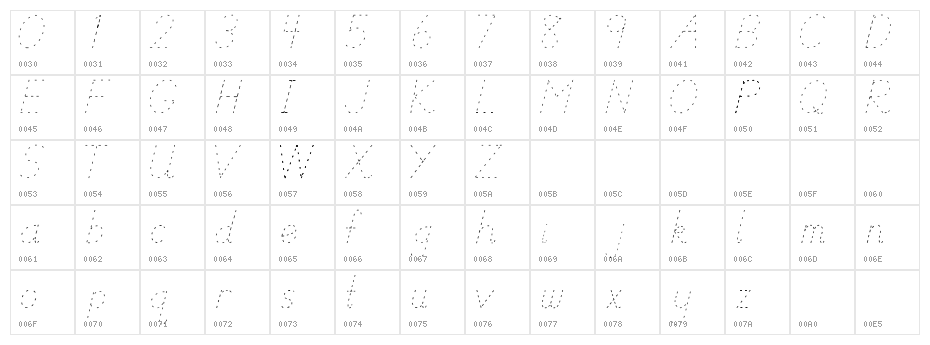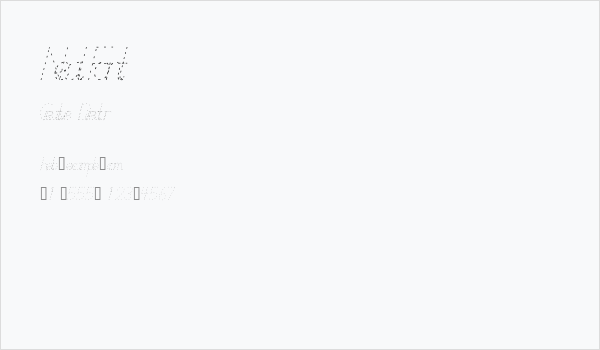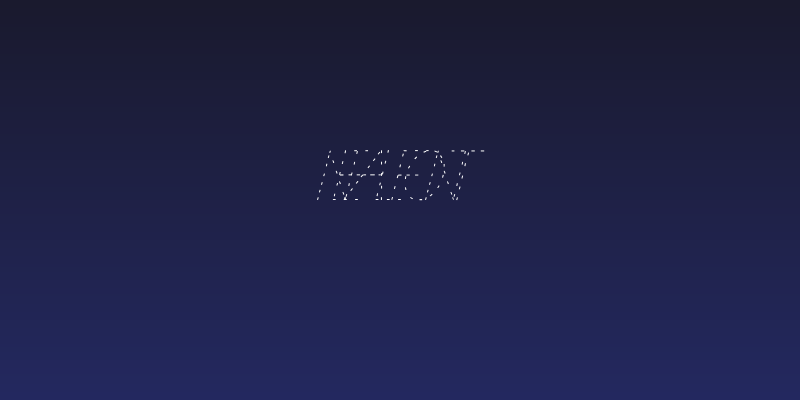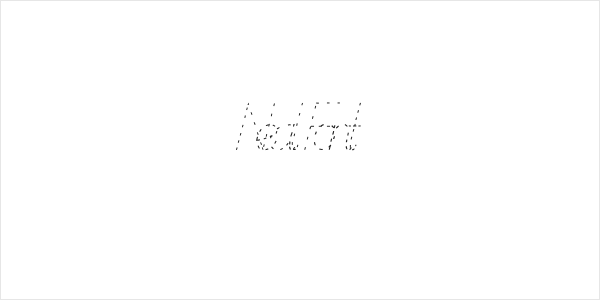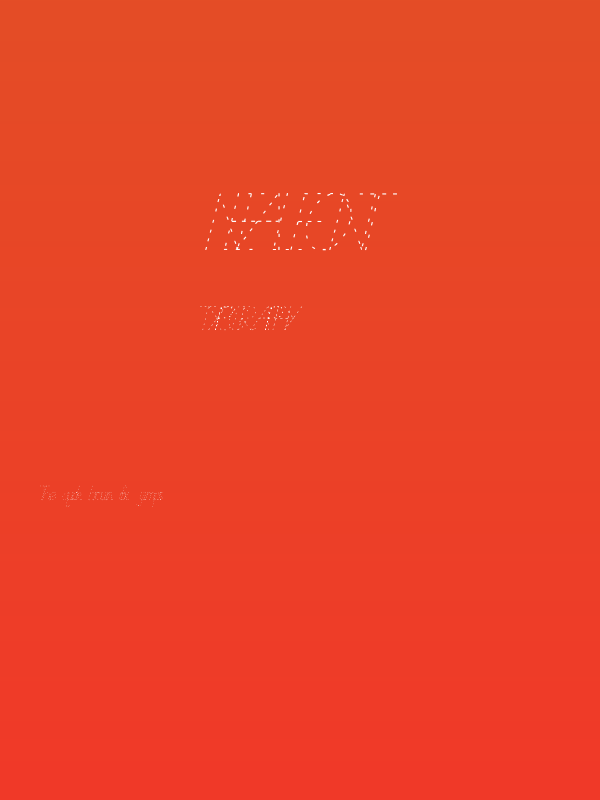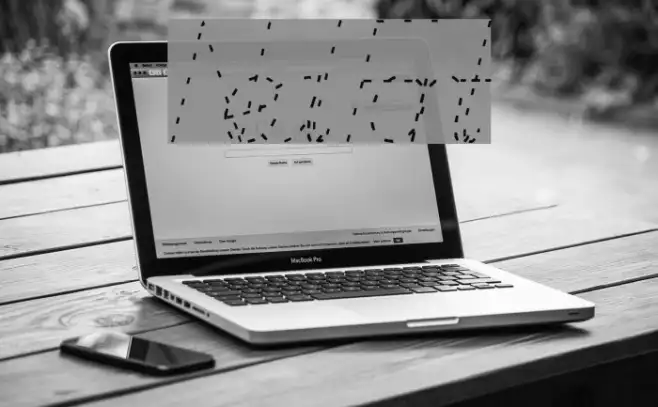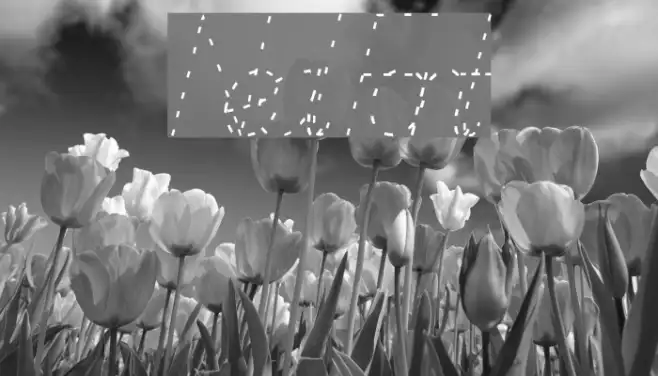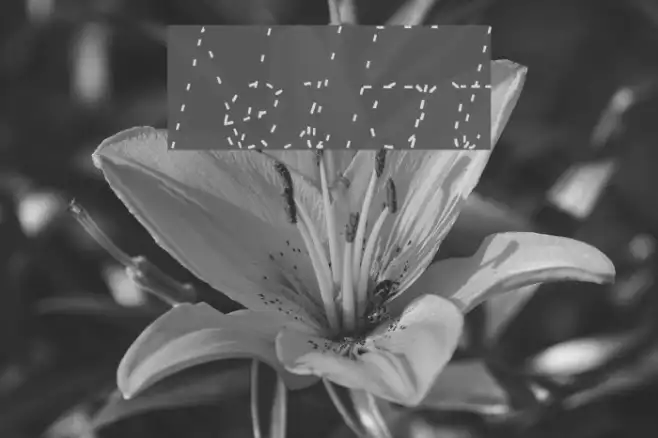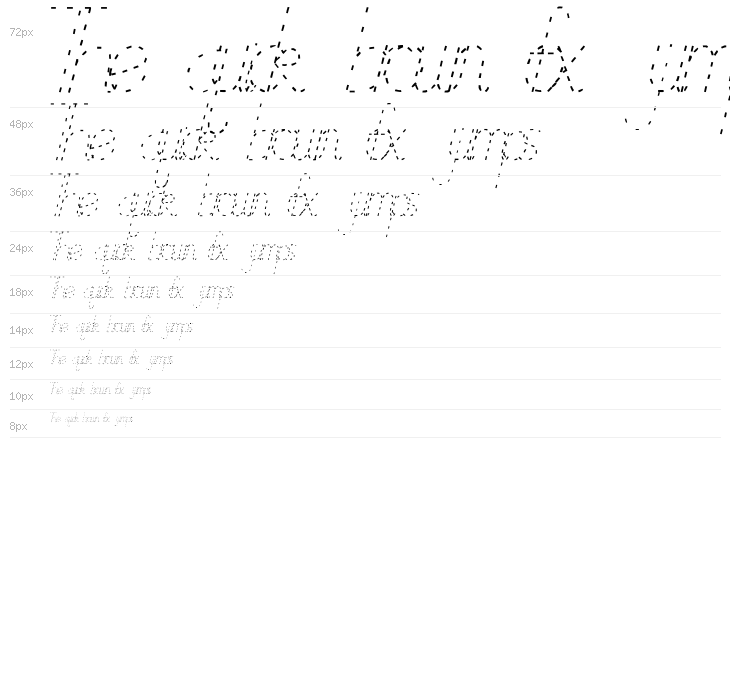
NealFont Font
NealFont Description
This font features a unique, dotted line style that creates an intriguing visual effect. Each character is constructed from a series of small, evenly spaced dots, giving the font a modern and digital appearance. The uppercase and lowercase letters maintain consistent proportions, while the numbers and special characters follow the same dotted pattern. This design choice results in a font that is both playful and futuristic, suitable for creative and tech-oriented projects. The spacing between characters is normal, ensuring readability despite the unconventional design.
| Use Case | Logos, Digital art, Creative branding |
| Proposed Projects | Ideal for tech-themed designs, digital art projects, and creative branding that seeks a modern and playful touch. |